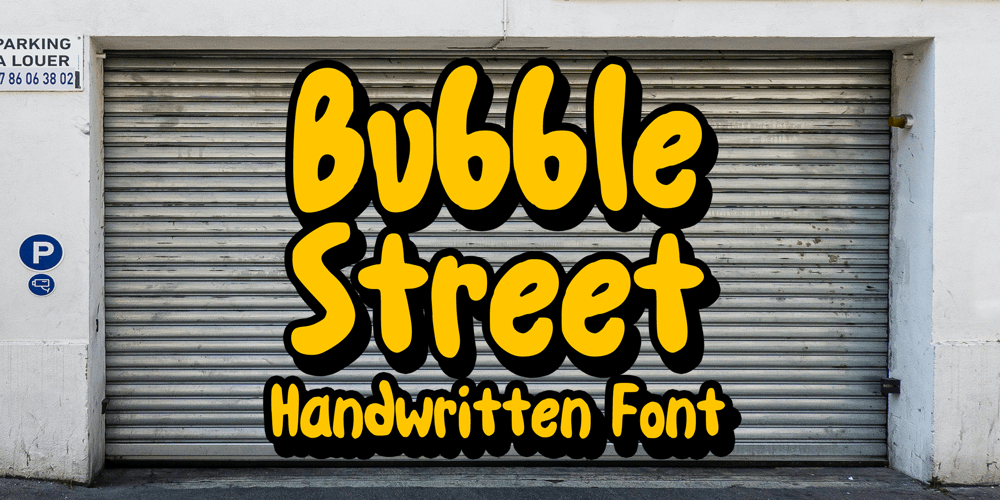
Bubble Street
Bubble Street font
Bubble Street Font Family was designed by Gabriel Valentinus and published by Mvmet. Bubble Street contains 1 styles and family package options. Bubble Street is a fun handwritten bubble font with spontaneous curves inspired by street art and graffiti. It will elevate a wide range of design projects to the highest level. You can use this font for many design ideas such as stickers, t-shirt designs, amazing logo designs, magazine or book covers, comics, cartoon drawings, daily typing, and many more. This font will add a super cool touch to your designs!